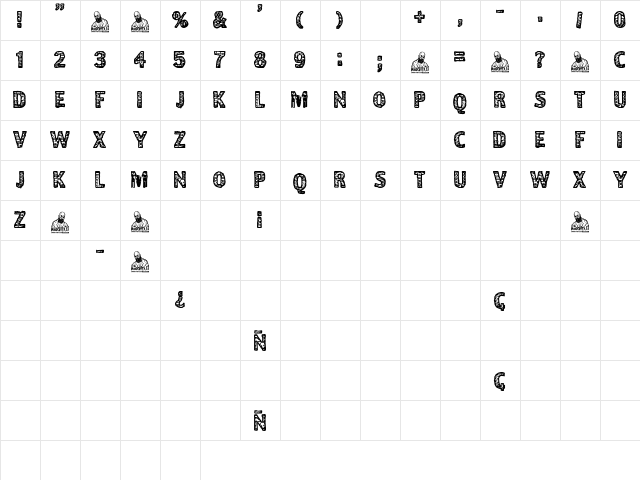
Caada Real Regular
Designer: Woodcutter Manero
Design Context for Caada Real
Caada Real is a composed and adaptable typeface that performs quietly and consistently across a wide range of design contexts.